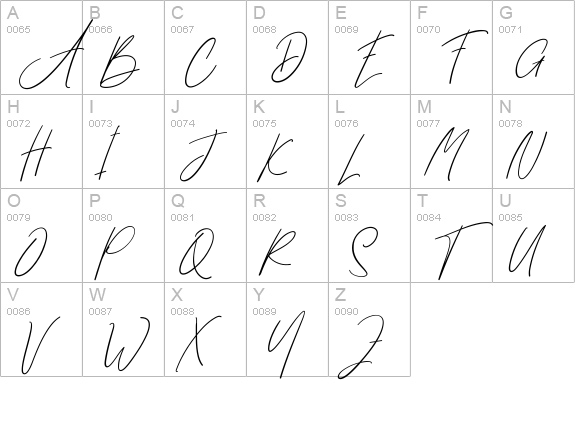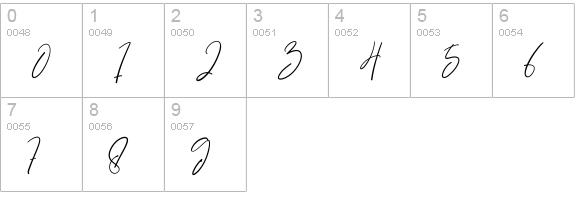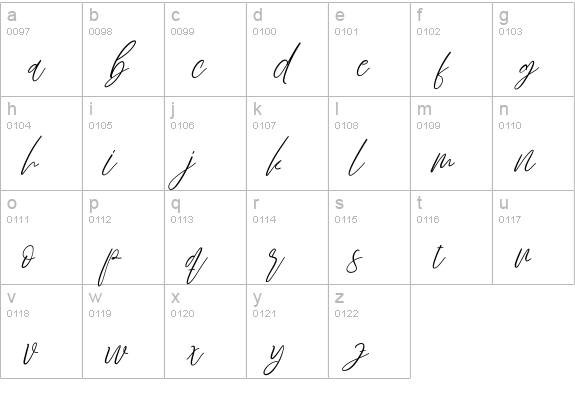
Brillian Signature is a free for personal use font in the Script > Handwritten category, designed by scratchones. It has been downloaded 11 times and is available for Windows, Mac and Linux.
Brillian Signature font is a stunning and elegant typeface that exudes sophistication and style. With its flowing curves and delicate lines, this font is perfect for adding a touch of luxury to your designs. Whether you're creating wedding invitations, branding materials, or social media graphics, Brillian Signature font will elevate your projects to the next level.